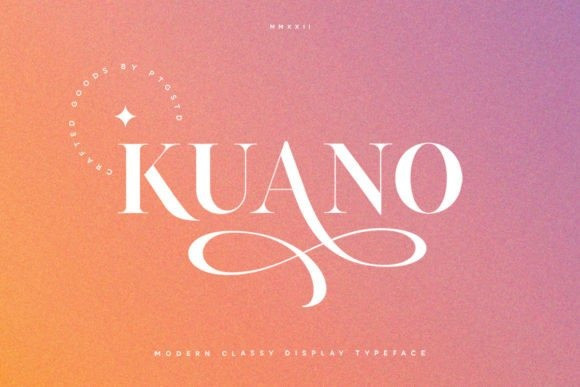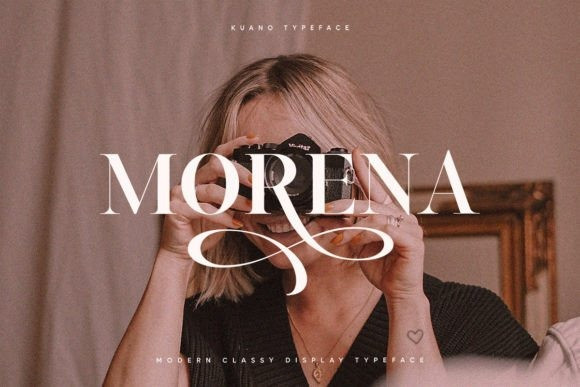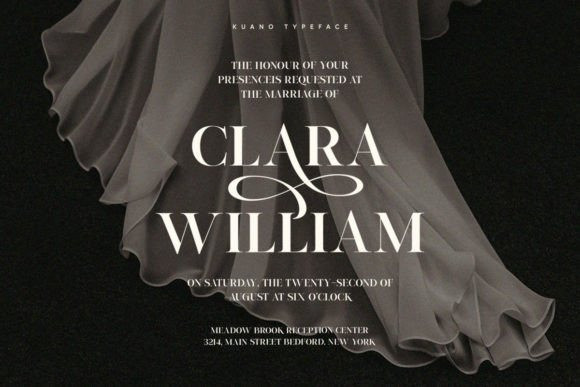
Kuano Font
is a romantic, minimalist, and elegant serif typeface. Its elegant aspect makes it the perfect choice when it comes to packaging design, fragrance design, titling, cosmetics design, website banners, and many more. Use it in your creations and you will notice how your design stands out!